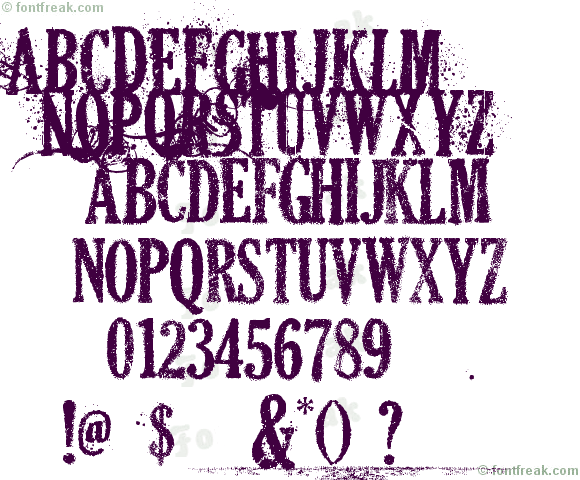
DEAD SECRETARY
About Dead Secretary
The Dead Secretary font by Andrew Hart is a captivating display typeface that seamlessly blends a whimsical aesthetic with a touch of nostalgia. Characterized by its bold, serif strokes and playful curvature, this font captures attention while maintaining a sense of elegance. The letters exhibit a moderate contrast between thick and thin strokes, offering a visually engaging experience without compromising readability. The unique spacing between characters adds to its quirky charm, making it suitable for a variety of creative projects.
Perfect for wedding invitations, movie posters, and artistic flyers, the Dead Secretary font is an excellent choice for those looking to make a statement. Its distinctive personality lends itself well to branding for small businesses, especially in the arts and crafts sector. Content creators seeking to infuse their work with a touch of personality will also find this font to be a valuable asset, whether in social media graphics or blog headers.
What sets the Dead Secretary font apart is its ability to evoke a sense of nostalgia while remaining fresh and contemporary. Its playful yet sophisticated look allows it to stand out in a saturated market, making it a versatile choice for anyone looking to elevate their design work. Whether used sparingly as an accent or prominently in a title, the Dead Secretary font adds a delightful charm that leaves a lasting impression.